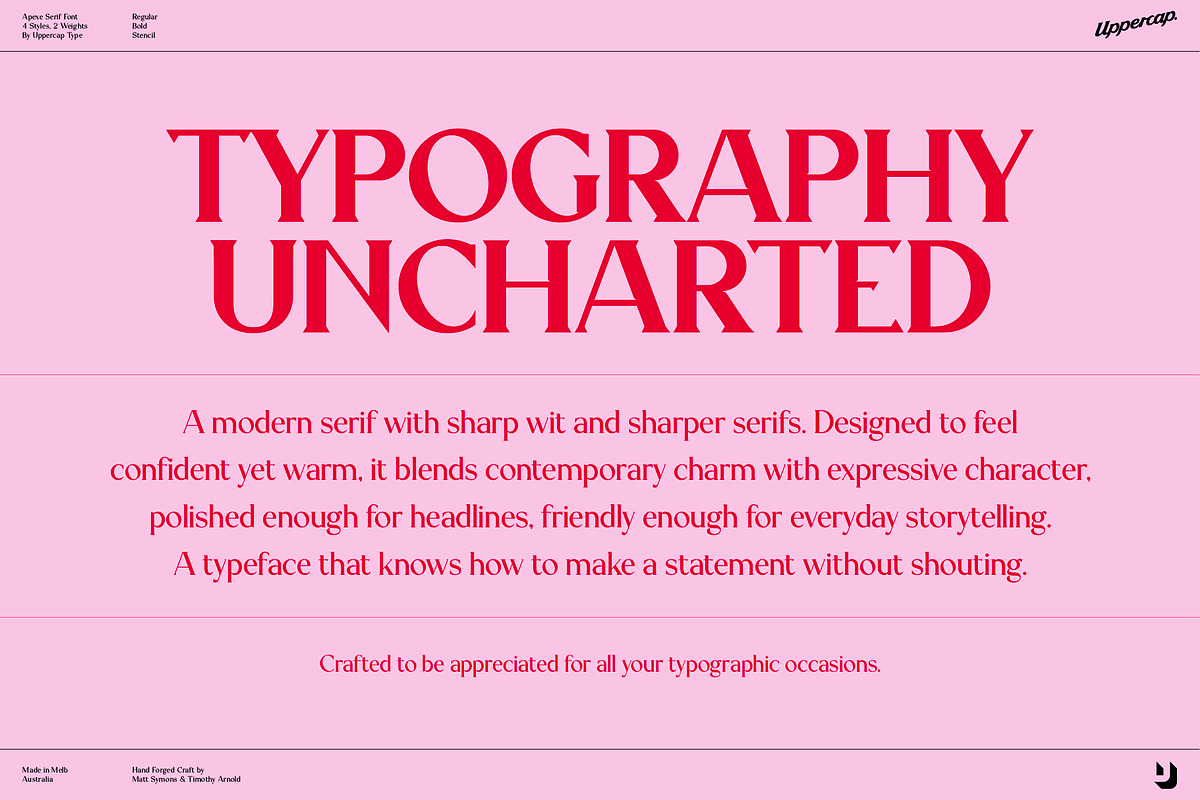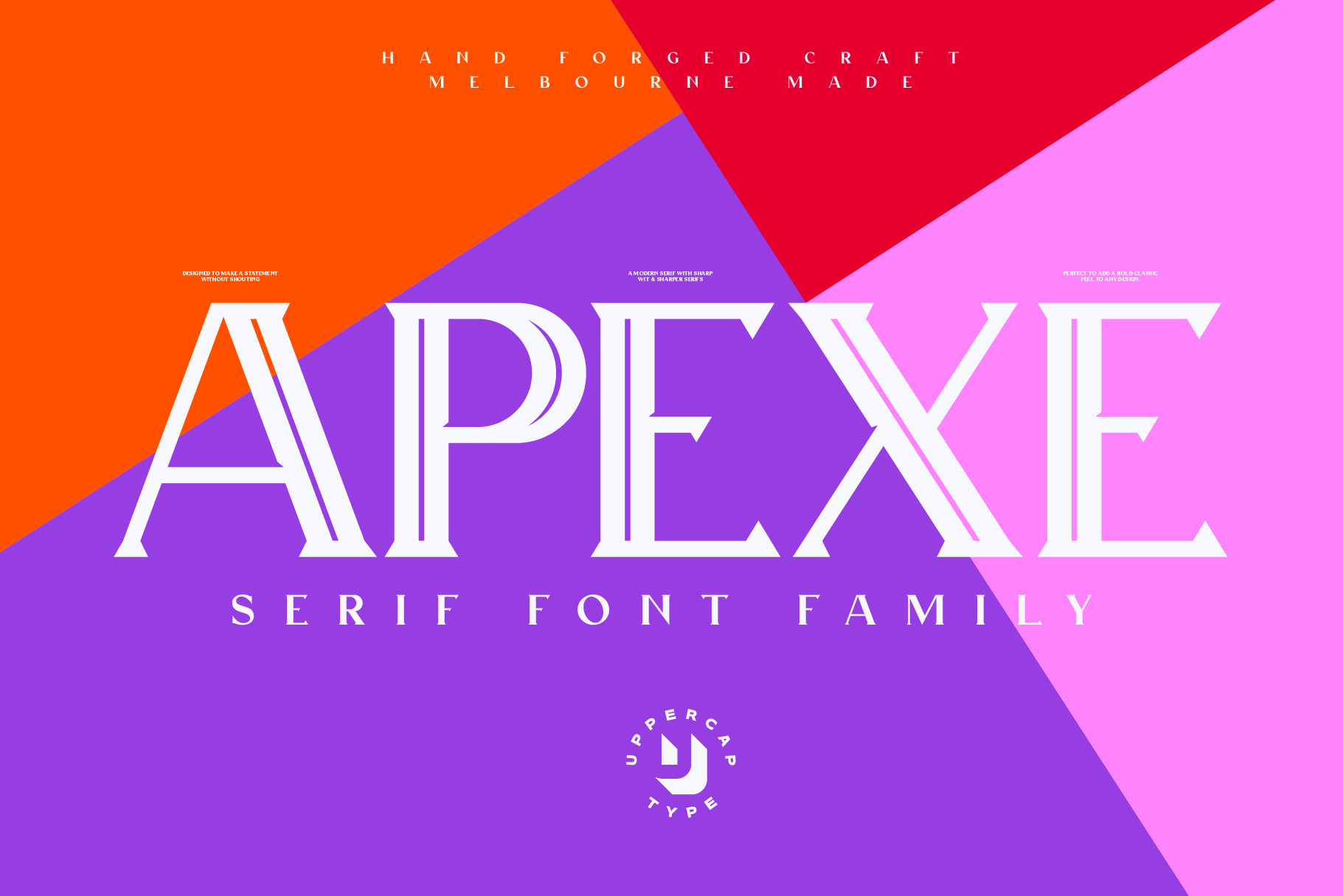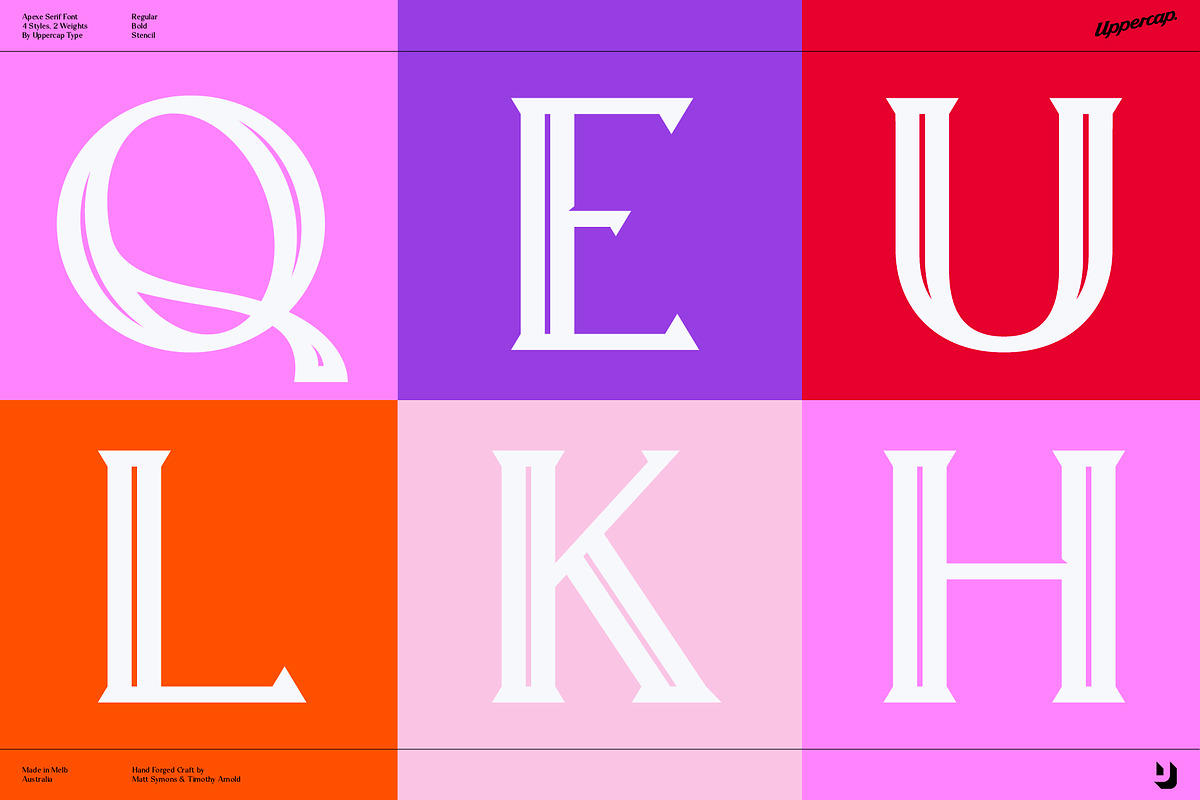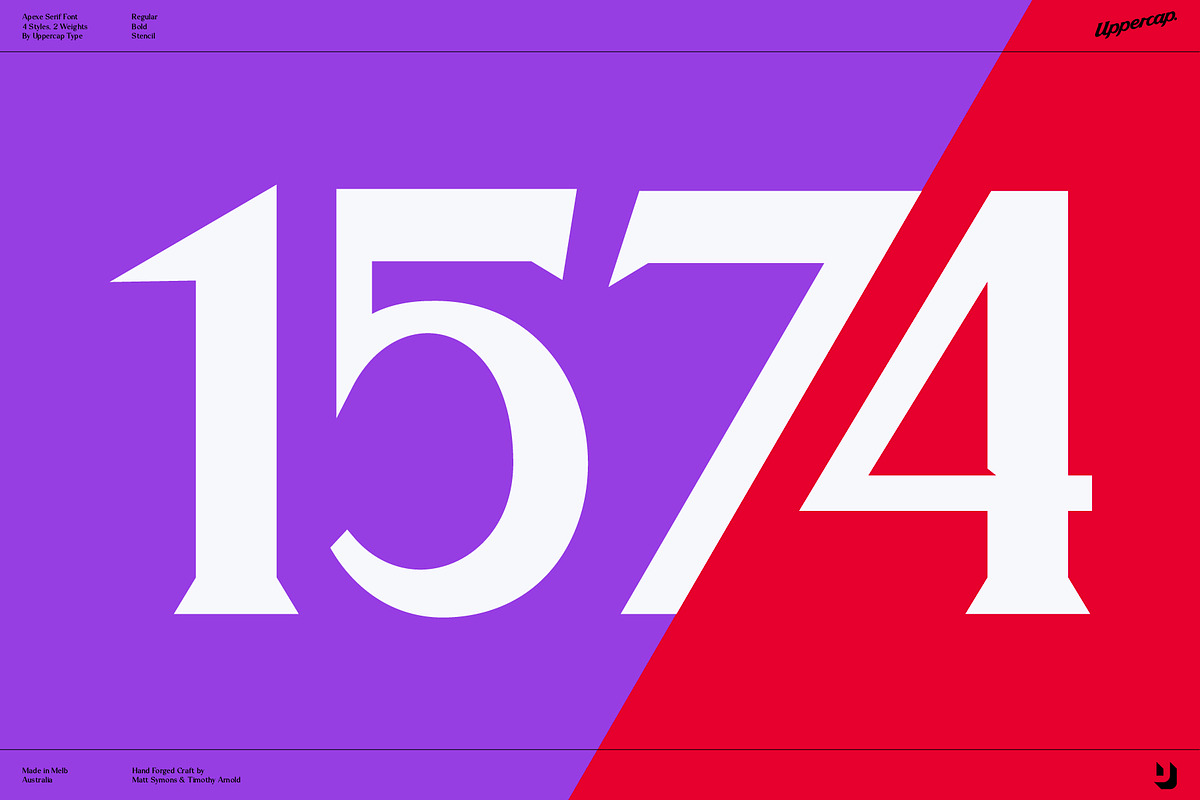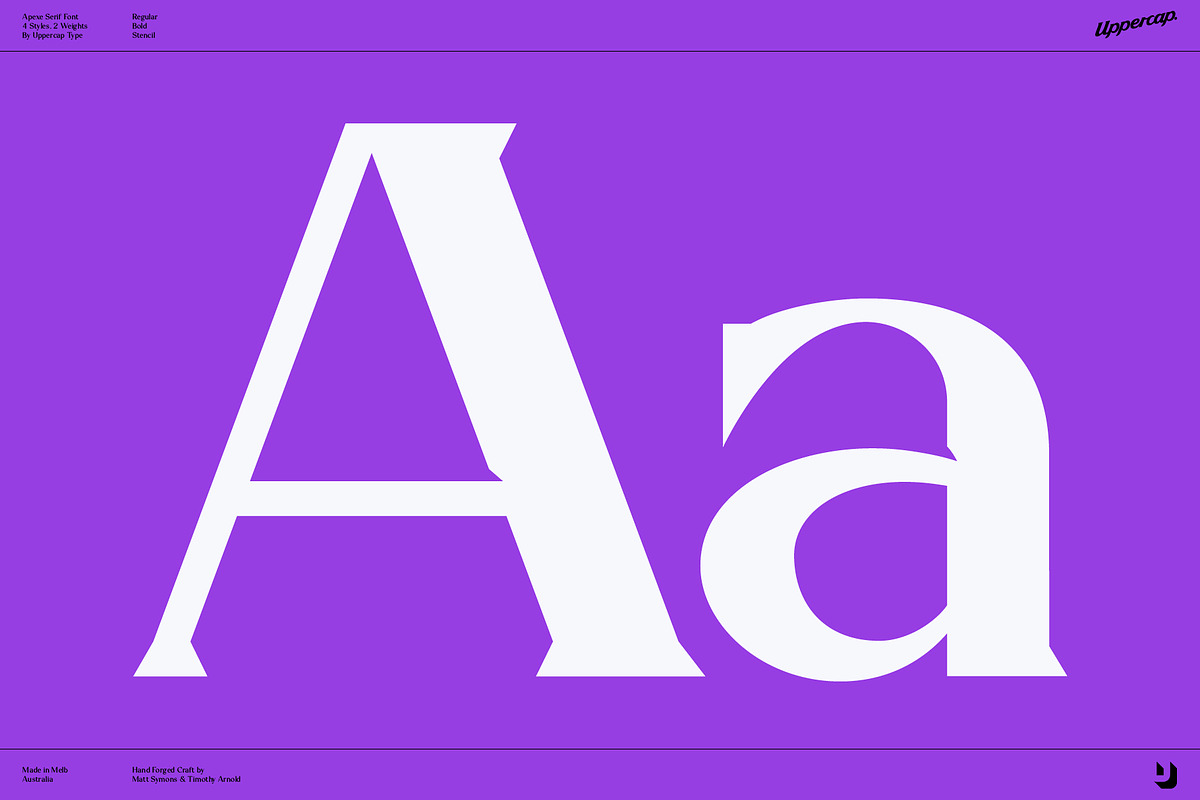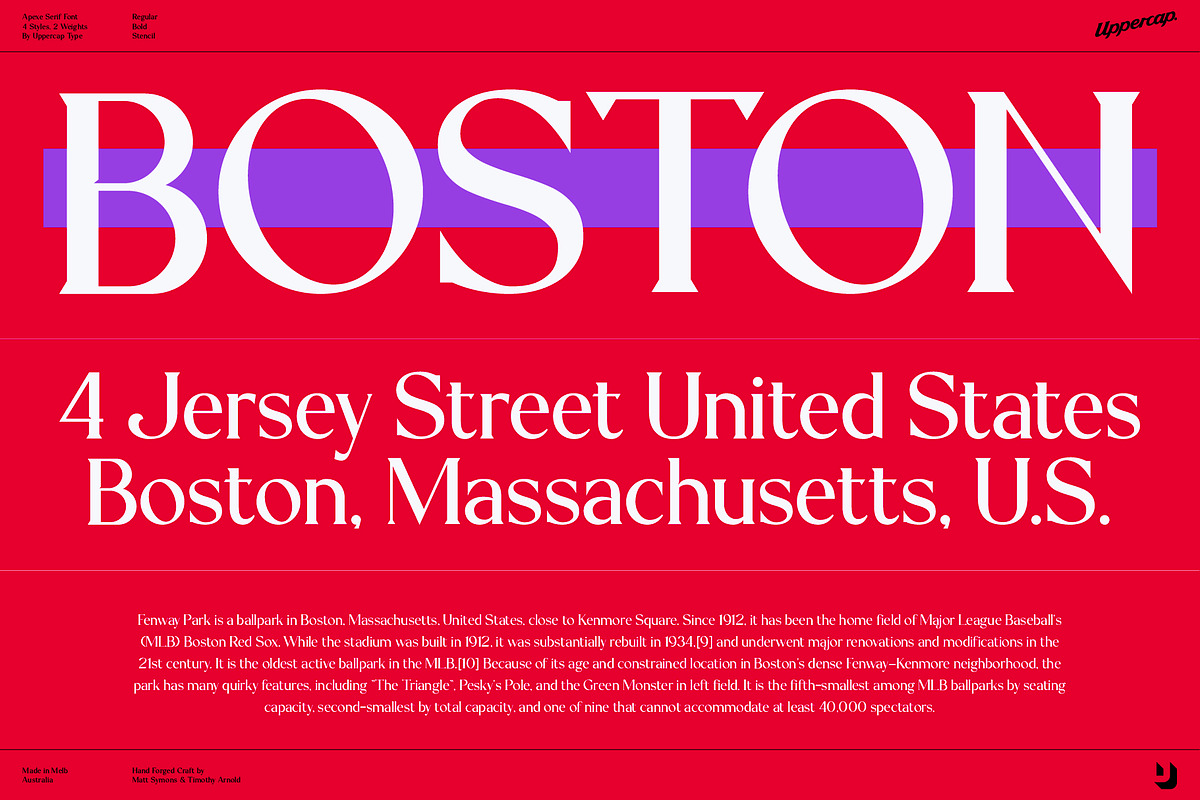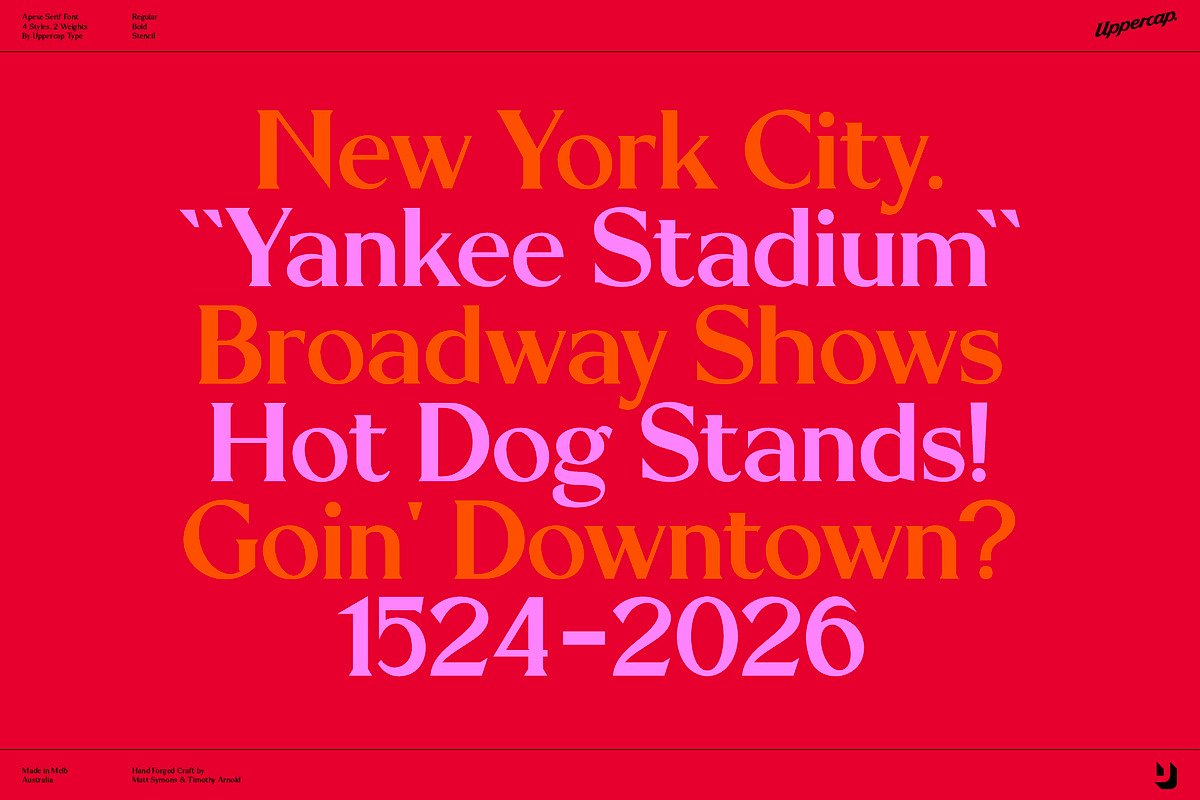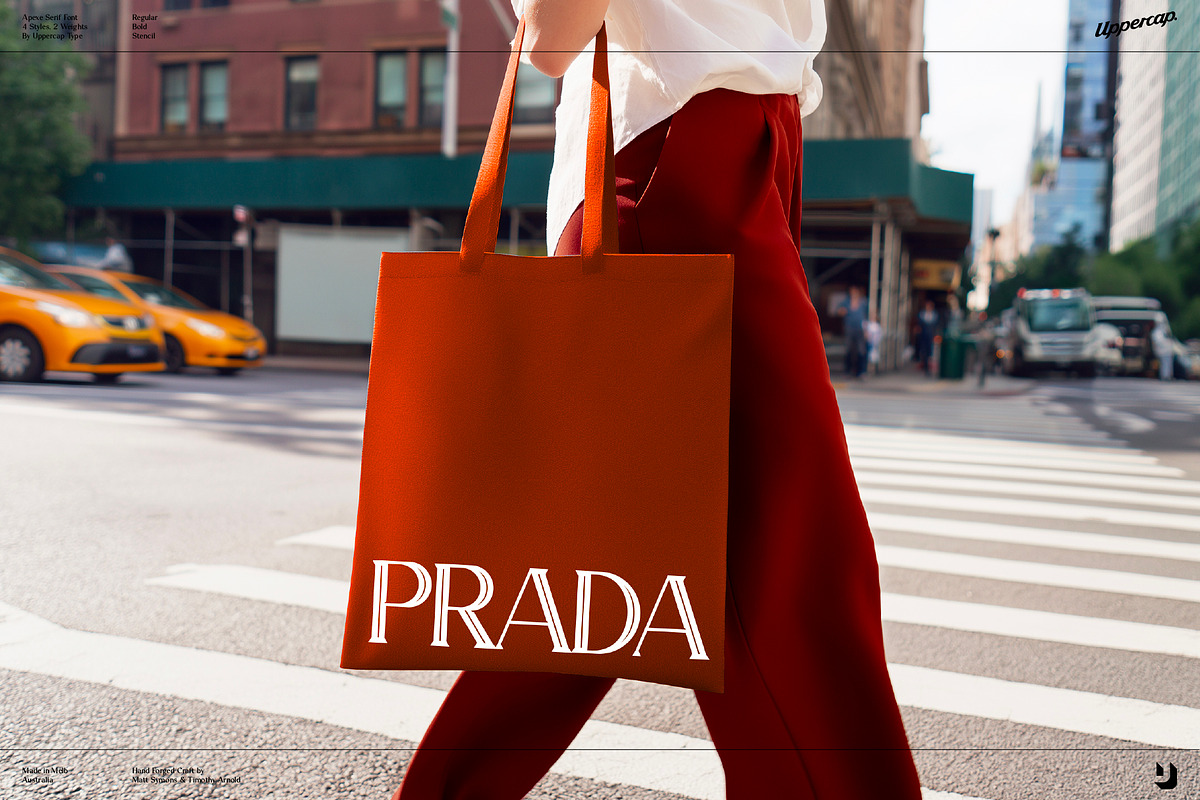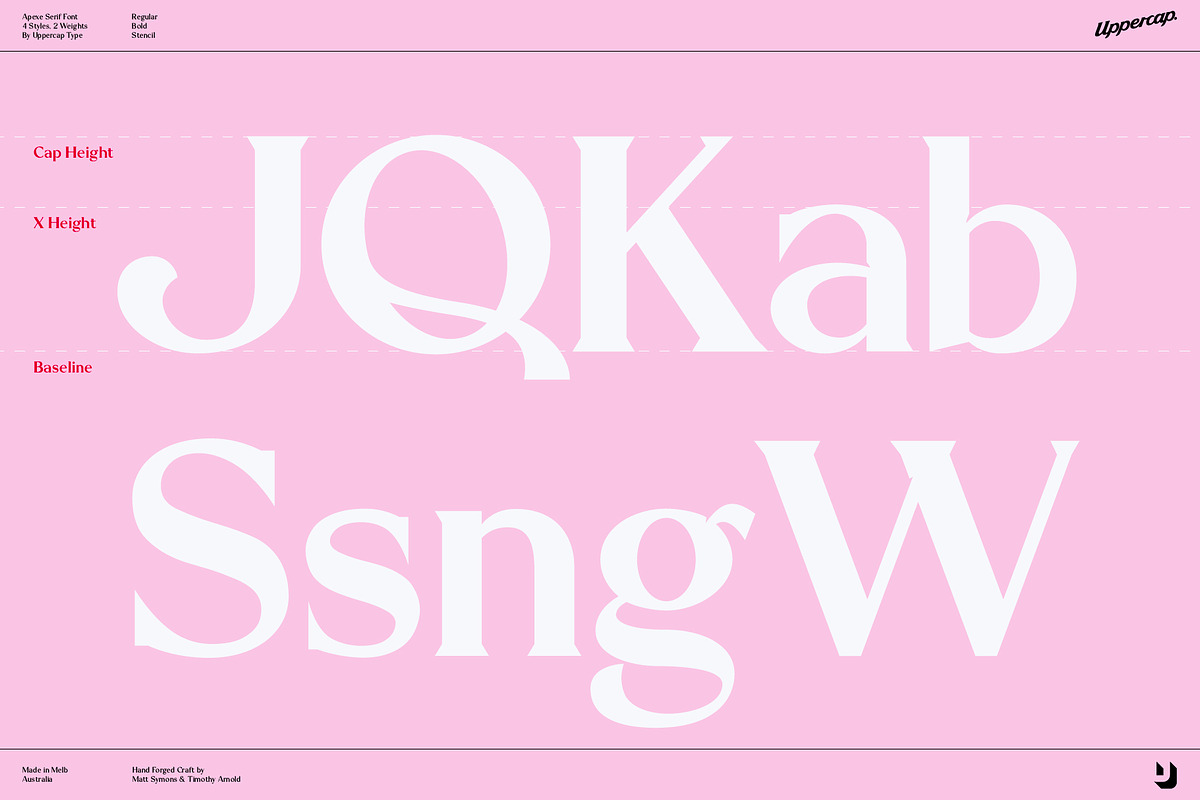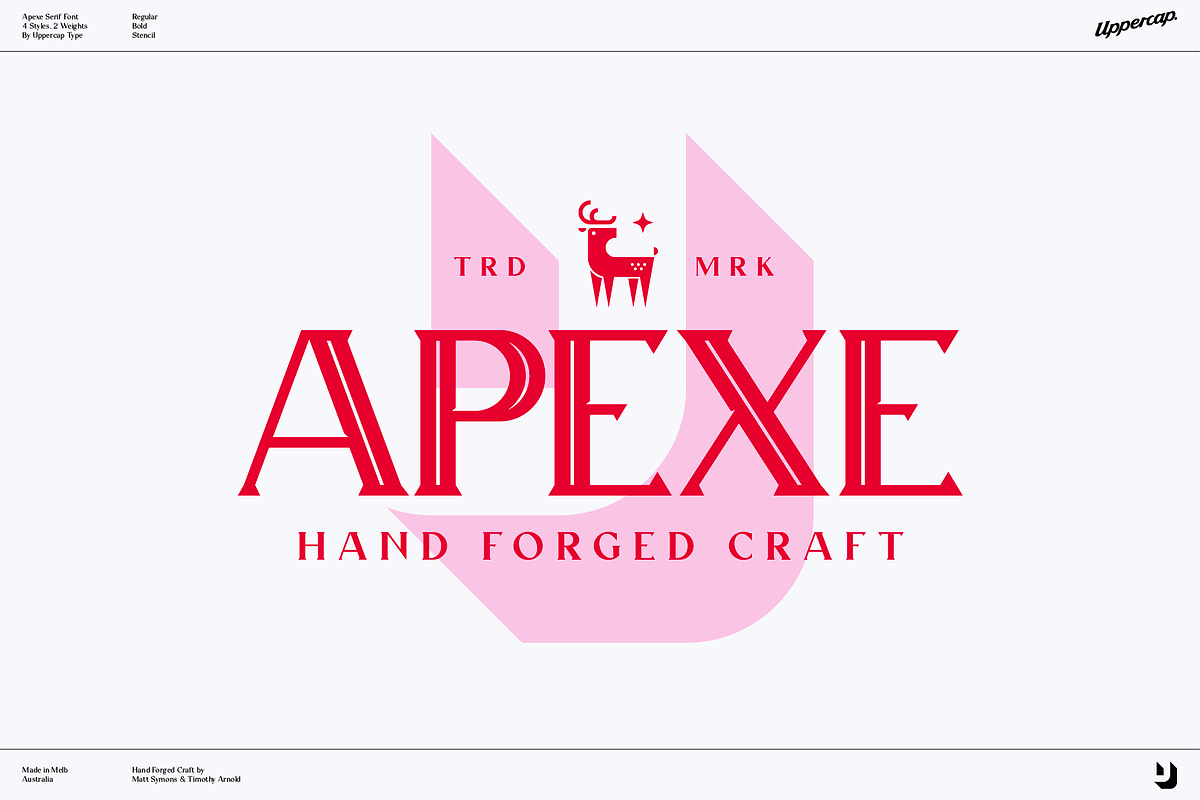
Apexe - Serif Font Family
APEXE is a contemporary type system designed to sit confidently between elegance and structure. Combining a modern serif with a clean, architectural core, APEXE delivers a versatile, premium feel that works across branding, editorial, packaging, and digital design. Sharp, minimal, and expressive, it is built for designers who want clarity with character and is perfect for bold headlines, refined logos, and striking layouts. APEXE features uppercase and lowercase, numbers, and essential punctuation, giving you everything you need for real world design use.